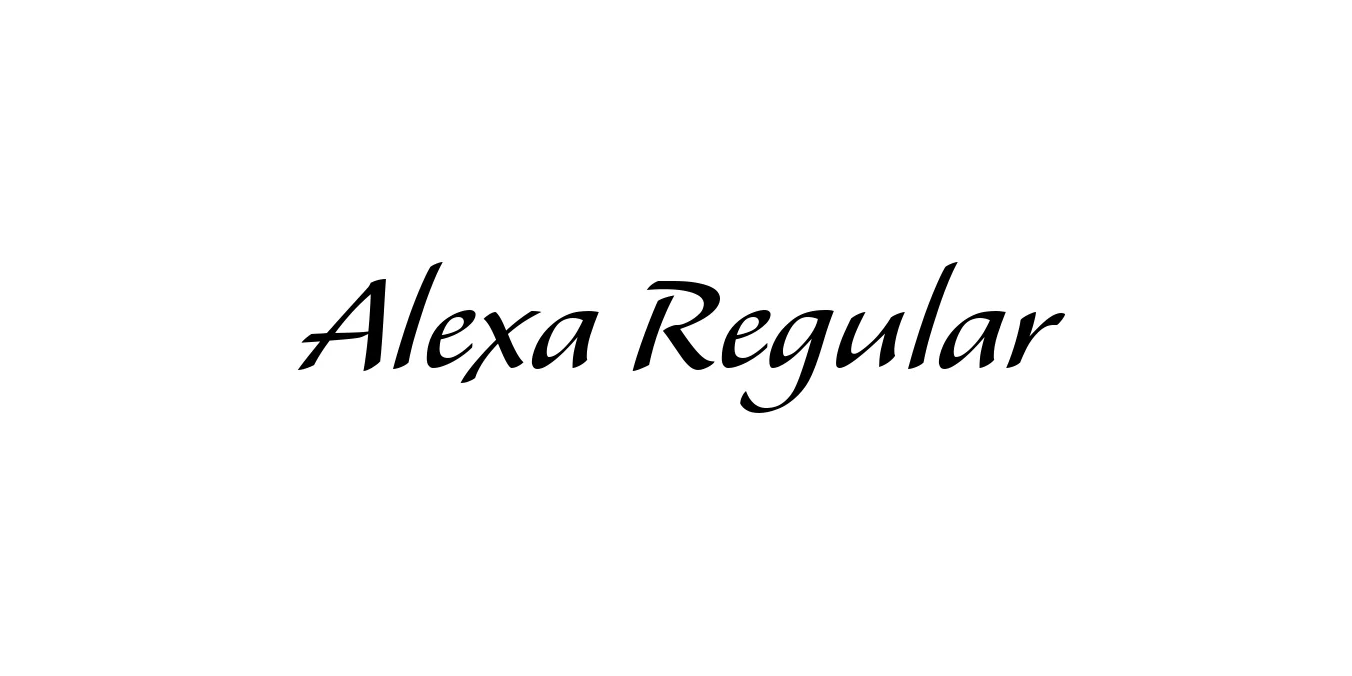
Alexa Regular
Designed by Arthur Baker
Alexa Regular is a graceful calligraphic typeface designed by the prolific Arthur Baker in 1995. This font is a direct reflection of Baker's unique calligraphic hand, drawing significant inspiration from the rhythmic and fluid pen-and-ink styles of the Italian Renaissance. Unlike rigid formal scripts, Alexa offers an informal, organic aesthetic that maintains a sophisticated and professional appearance through its balanced proportions.
The typeface is celebrated for its fluidity and warmth, capturing the natural movement of a broad-edged pen. Its strokes are characterized by subtle variations in thickness and elegant terminals, making it a favorite for designers who want to bridge the gap between historical tradition and modern casual elegance. Its legibility remains high even in longer passages, which is a rare feat for highly decorative script fonts.
Alexa Regular Best Uses
Perfect for creating elegant and deeply personal event stationery.
Ideal for boutique logos and high-end packaging requiring a hand-drawn touch.
Adds a sophisticated human element to magazine headlines and lifestyle pull quotes.